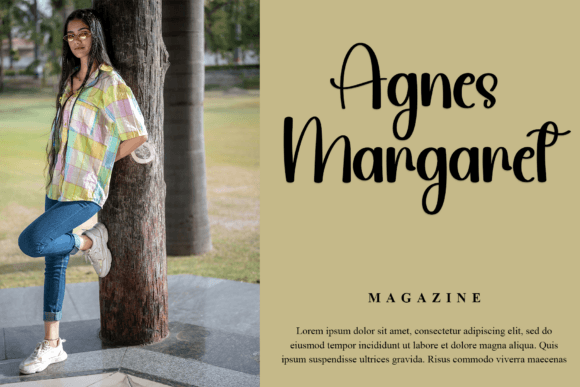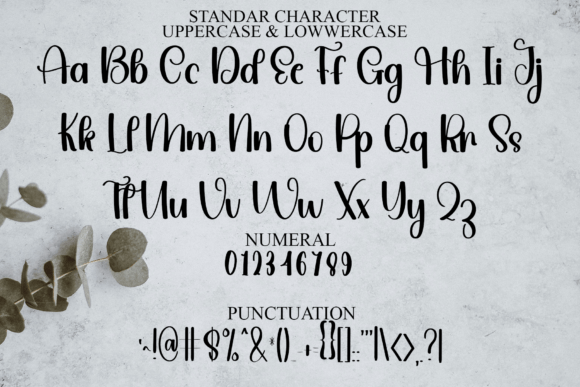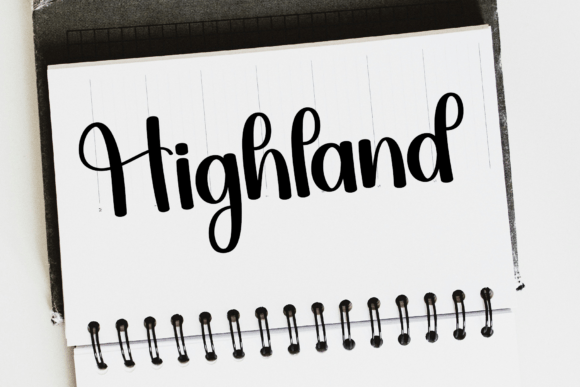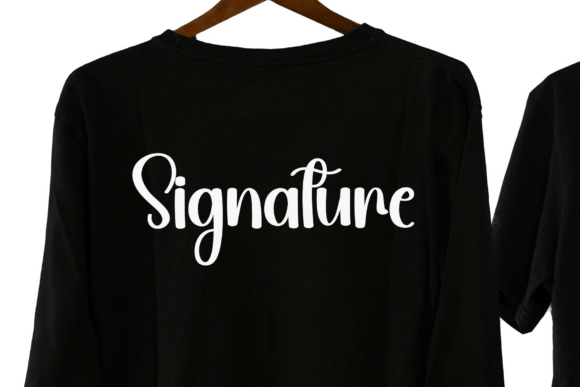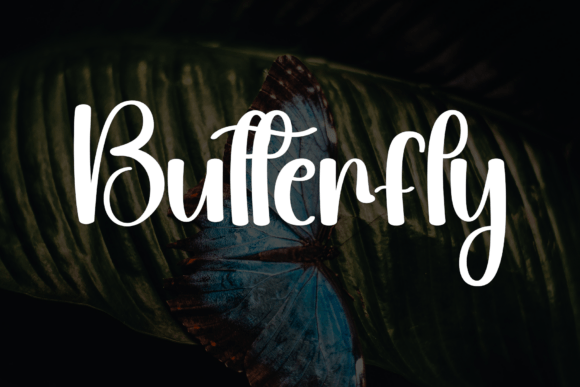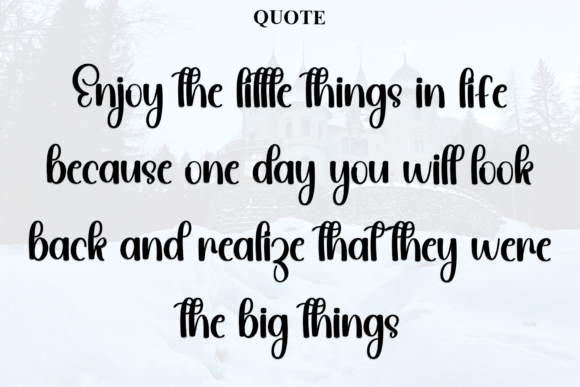
Introducing Butterfly Monday Font: Elevate Your Designs with Timeless Elegance
In the world of typography, a font can make or break a design. For designers and crafters seeking to add a touch of elegance and whimsy to their projects, Butterfly Monday Font is an exceptional choice. This lovely and timeless handwritten font is designed to make your designs stand out, offering a unique and beautiful touch to every letter.
The Beauty of Butterfly Monday Font
Butterfly Monday Font is more than just a typeface; it’s a design element that can transform your work. Its handwritten nature gives it a personal and approachable feel, making it perfect for a wide range of applications. Whether you’re creating eye-catching logos, developing a brand identity, or crafting inspirational quotes, this font is sure to bring your designs to life.
Key Features of Butterfly Monday Font
- Unique and Beautiful Touch: Every letter in Butterfly Monday Font is meticulously crafted to ensure that each one has its own distinct character. This uniqueness adds a layer of personality to your designs, setting them apart from the ordinary.
- Timeless Appeal: Unlike trendy fonts that may quickly become outdated, Butterfly Monday Font boasts a timeless quality. Its classic handwritten style ensures that your designs remain relevant and stylish for years to come.
- Versatility: The versatility of Butterfly Monday Font is one of its most compelling features. It can be used across various design projects, from branding and advertising to digital media and print materials.
- Ease of Use: Designed with the user in mind, Butterfly Monday Font is easy to incorporate into your projects. Whether you’re a professional designer or a DIY enthusiast, you’ll find it straightforward to use and integrate into your workflow.
Applications of Butterfly Monday Font
The possibilities are endless when it comes to using Butterfly Monday Font. Here are a few ideas to get you started:
- Logo Design: Create a memorable logo that captures the essence of your brand. The unique and beautiful letters of Butterfly Monday Font are sure to make your logo stand out.
- Branding: Consistency is key in branding. Use Butterfly Monday Font across all your branding materials to create a cohesive and recognizable visual identity.
- Quotes and Typography: Add a touch of elegance to your quotes and typographic designs. The flowing and natural look of Butterfly Monday Font is perfect for inspirational quotes, posters, and social media graphics.
- Digital and Print Media: From digital banners and social media posts to print brochures and flyers, Butterfly Monday Font adapts seamlessly to various mediums, ensuring your message looks great everywhere.
Tips for Using Butterfly Monday Font
To make the most of Butterfly Monday Font, consider the following tips:
- Pair with Complementary Fonts: For maximum impact, pair Butterfly Monday Font with fonts that complement its style. A simple sans-serif font can create a nice contrast and enhance readability.
- Experiment with Colors: Don’t be afraid to experiment with different colors. The elegance of Butterfly Monday Font shines through in both bold and subtle color choices.
- Play with Sizes: Varying font sizes can add depth and interest to your designs. Use larger sizes for headings and smaller sizes for body text to create a visually appealing hierarchy.
Butterfly Monday Font is a versatile and beautiful addition to any designer’s toolkit. Its unique and timeless handwritten style makes it perfect for a wide range of projects, from logos and branding to quotes and typography. By incorporating Butterfly Monday Font into your designs, you’re not just choosing a typeface; you’re adding a touch of elegance and personality that will make your work stand out.
Whether you’re a professional designer or a crafting enthusiast, Butterfly Monday Font is sure to inspire and elevate your designs. So why wait? Discover the beauty and versatility of Butterfly Monday Font today and bring your creative visions to life!